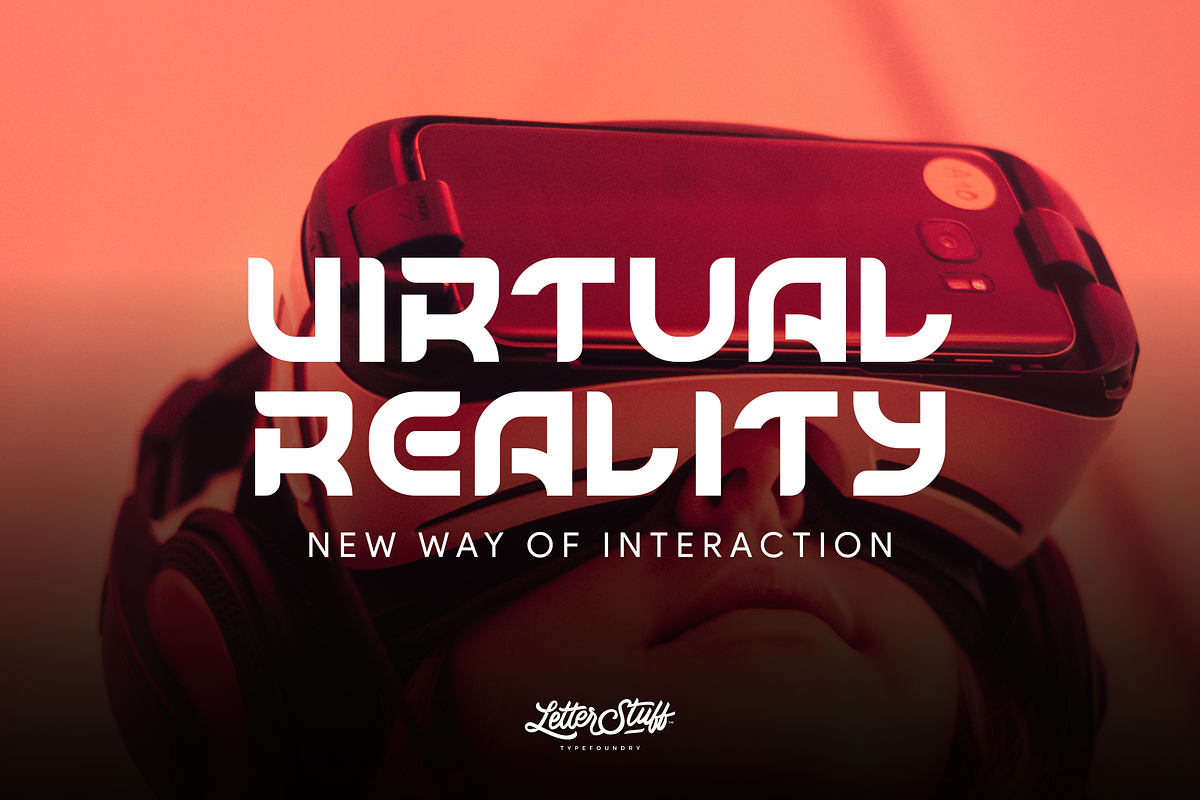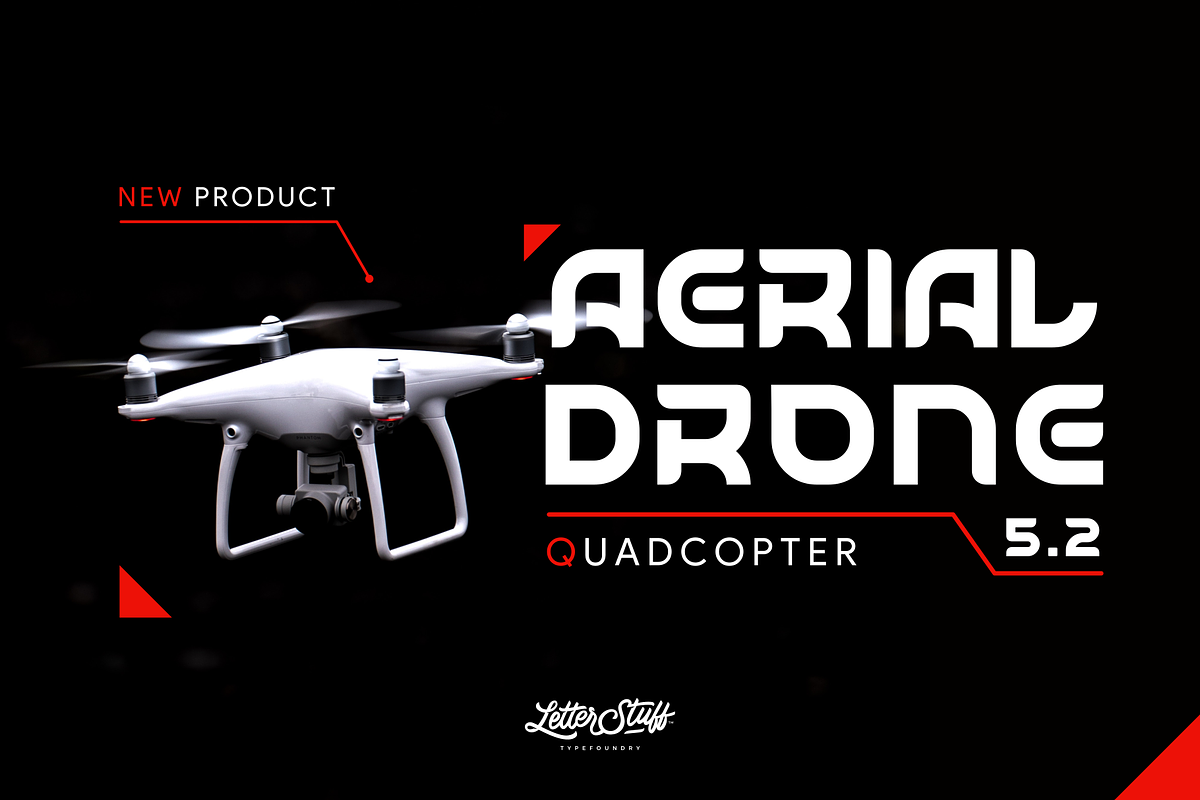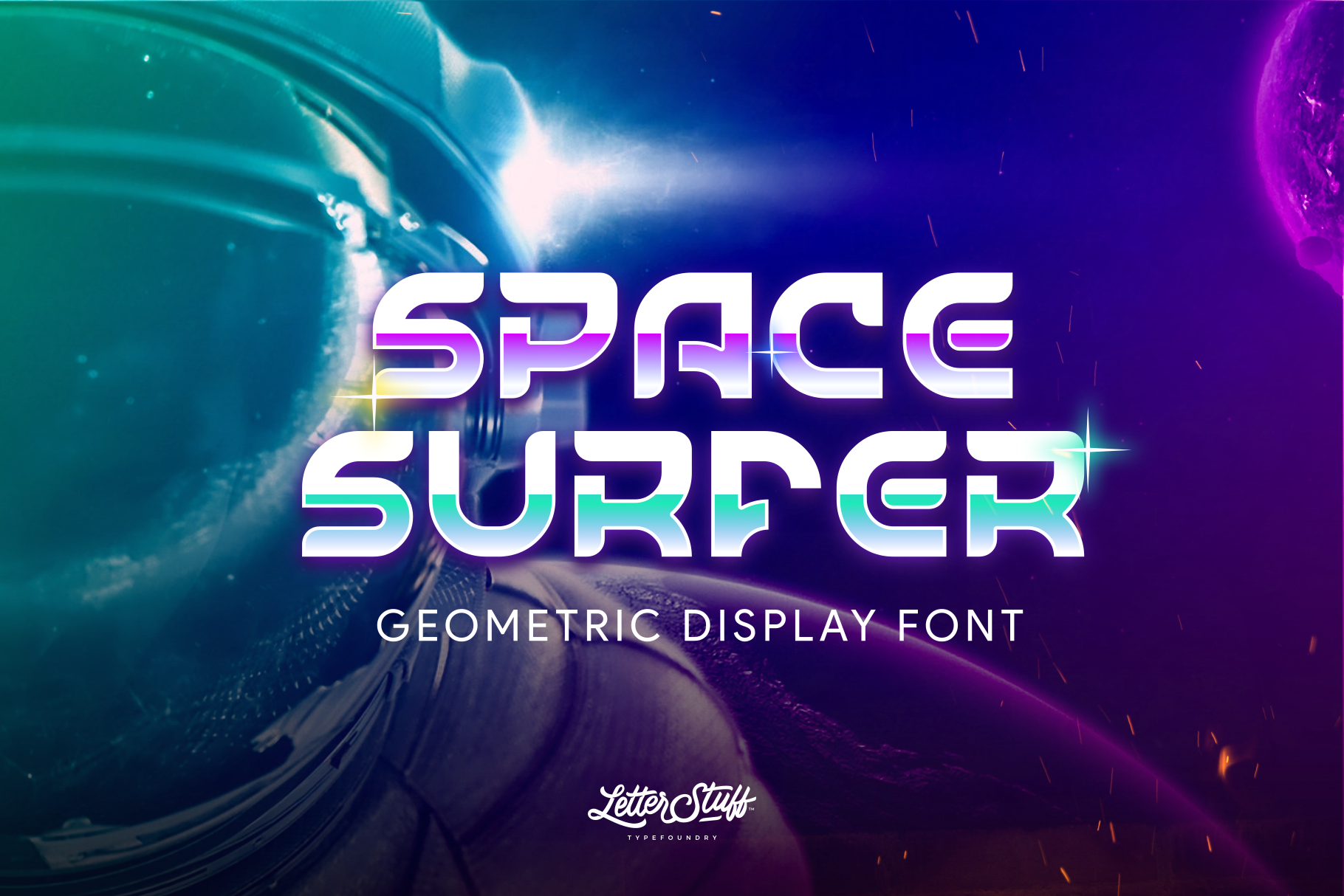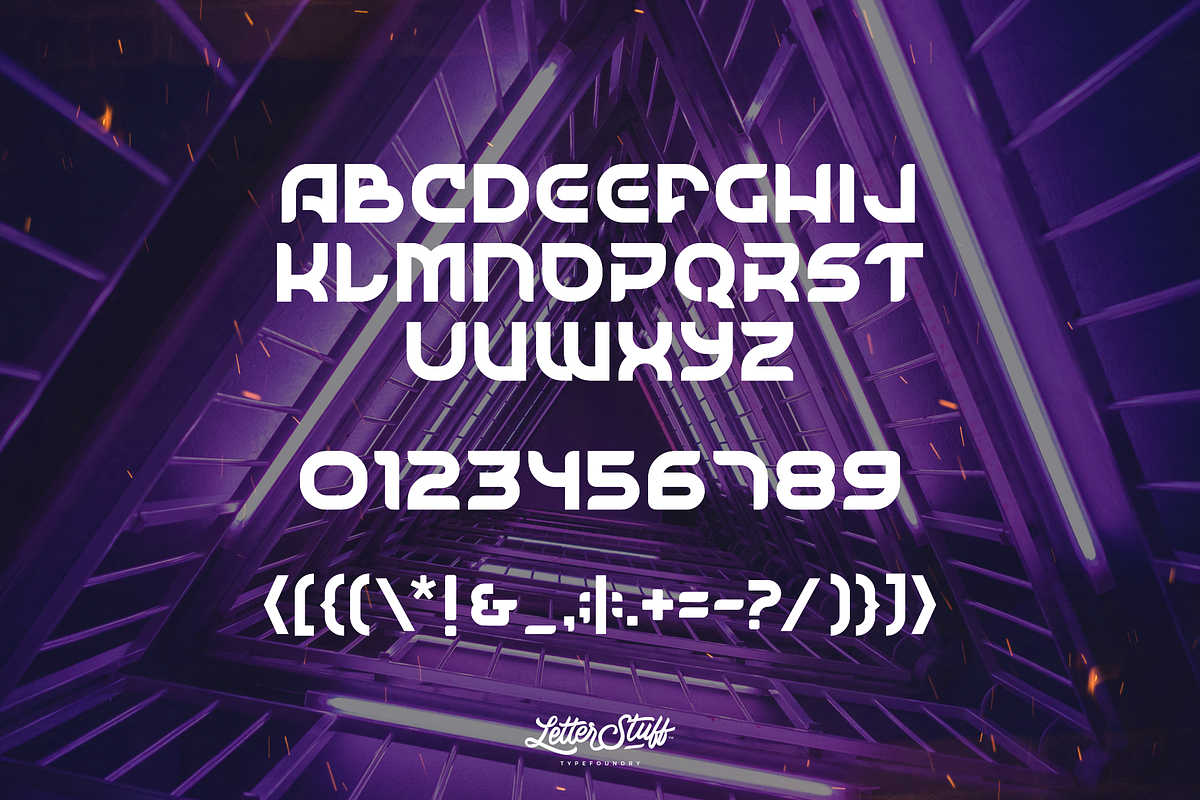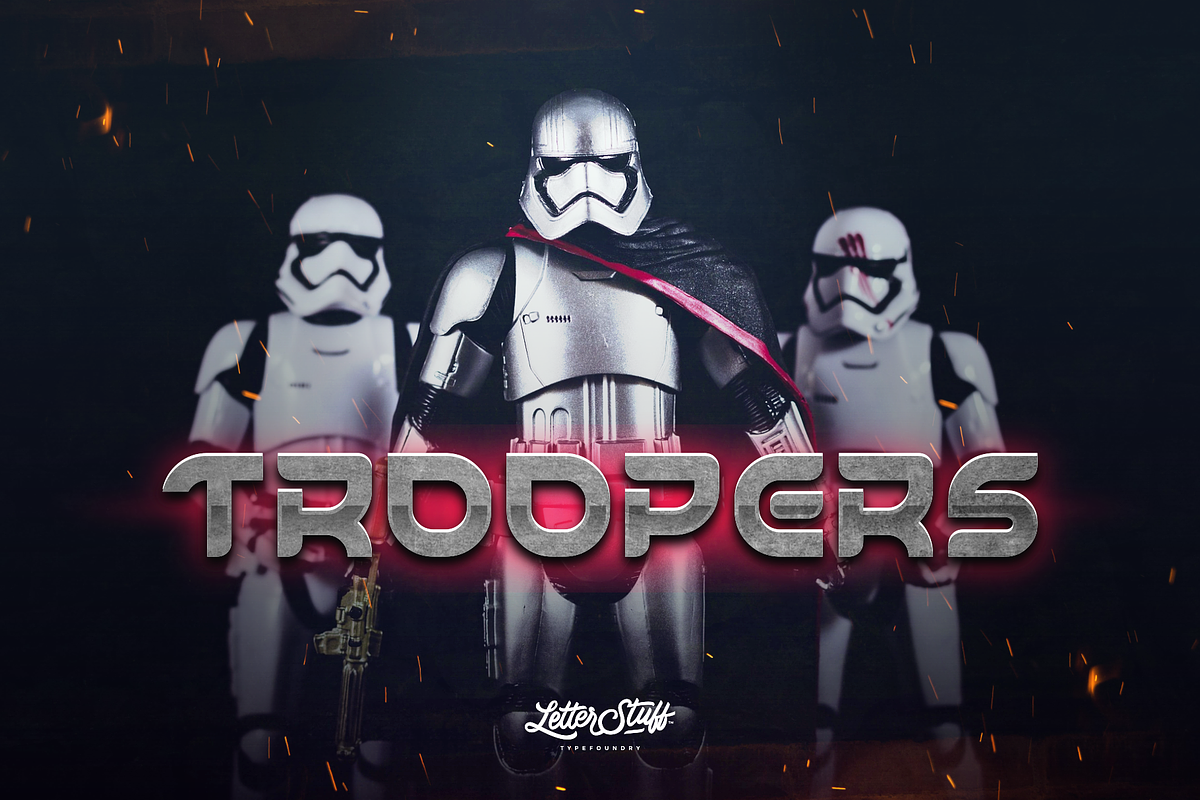
SpaceSurfer is new futuristic, strong yet bold display font. Made with precision and modern looking. Suitable for your modern and futuristic design need such as film poster, logo, games etc.
Features : UPPERCASE NUMBERS PUNCTUATIONs
UPDATED : Lowercase and standart characters have been added